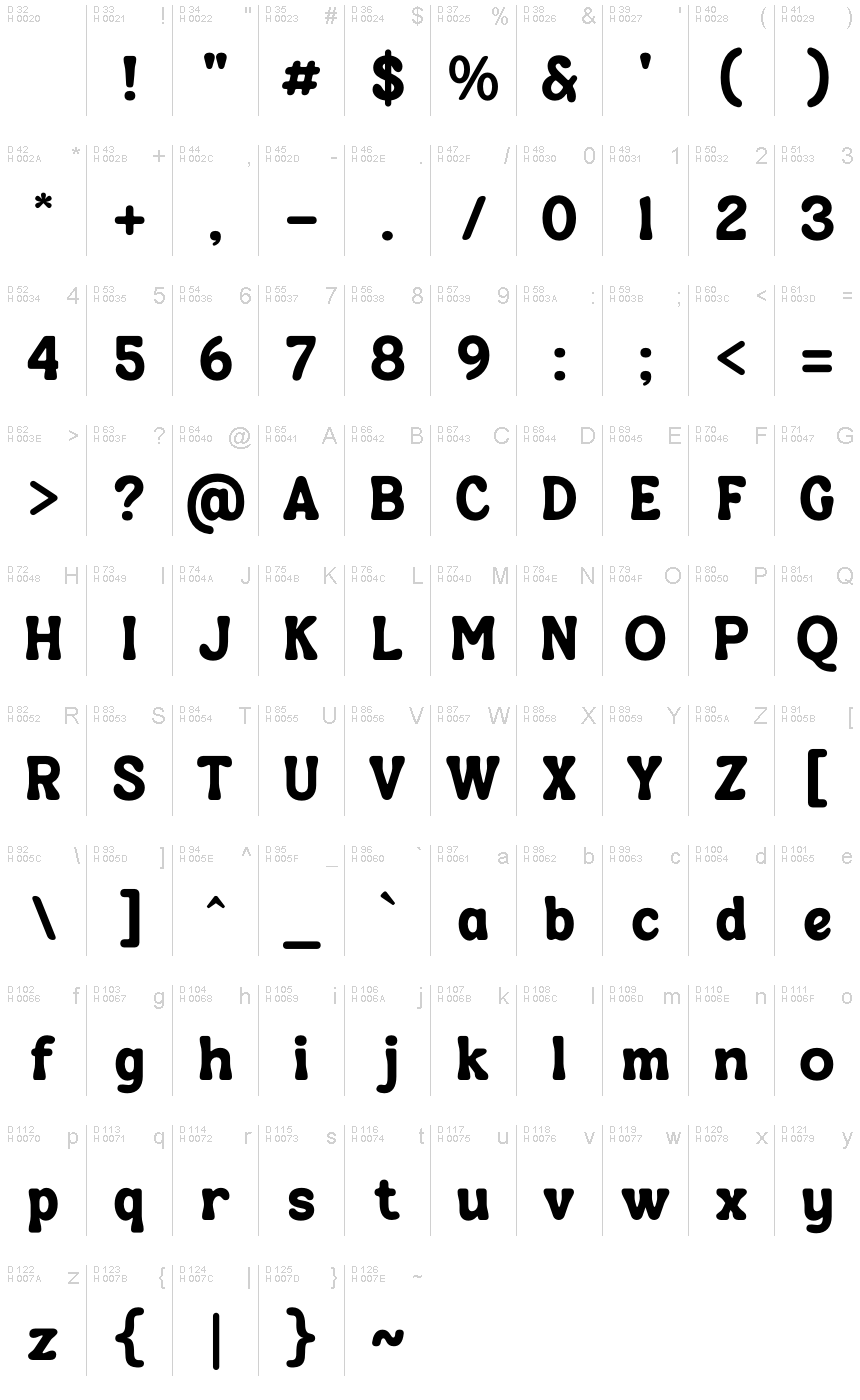
Retosta
Retosta is a bold, retro-inspired display font that exudes a captivating blend of vintage charm and contemporary flair. Crafted by the creative minds at Storytype Studio, this font boasts a striking, attention-grabbing appearance that immediately commands attention.
With its robust, unapologetic letterforms and a touch of retro character, Retosta is well-suited for a wide range of design applications, from eye-catching headlines and impactful logos to vintage-inspired branding and packaging. Whether you're curating a modern, edgy aesthetic or seeking to evoke a nostalgic, bygone era, Retosta's distinctive presence can lend a powerful visual impact to your projects.
This font's versatility and visual impact make it a compelling choice for designers looking to make a lasting impression.